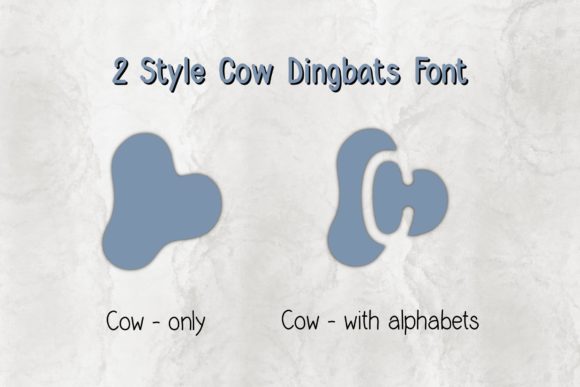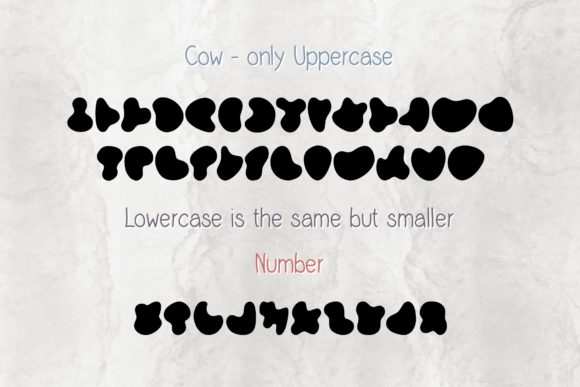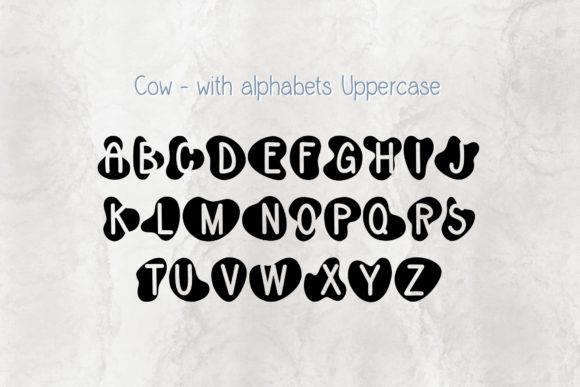
Cow Font
About the Cow Font
Add a touch of class to your work with the Cow Font, a truly exceptional typeface. Cow is a cute and fun duo font (dingbats and decorative). This font is the perfect fit for all of your logos, branding, social media, and crafty DIY projects.
Cow’s playful dingbats and decorative elements shine in projects requiring a lighthearted and approachable aesthetic. Ideal applications include children’s books, branding for playful businesses (e.g., ice cream shops, toy stores), social media graphics, and packaging for fun products. However, its decorative nature makes it unsuitable for large blocks of text or UI elements where readability is paramount.
For optimal impact, pair Cow with a clean sans-serif like Open Sans for body copy, ensuring contrast and maintaining readability. Alternatively, a slightly more playful yet legible sans-serif such as Lato could also complement its charm. Avoid pairing with overly ornate fonts which might clash with Cow’s distinctive character.
Cow’s overall personality is undeniably cheerful and friendly, making it a perfect choice for brands that want to convey warmth and approachability. Its whimsical nature should be considered when selecting complementary fonts to maintain a balanced and visually appealing design.
Cow Font Usage Examples
Cow Font Example